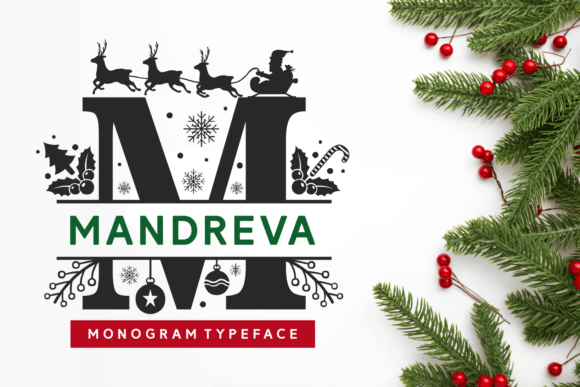
Looking for the perfect font to make your Christmas design projects stand out? Look no further than Mandreva Font, the beautiful decorative font created by Dito (7NTypes).
Mandreva Font is the ultimate tool to take your holiday-themed design projects to the next level. This sweet and festive font features clean letters in a unique Christmas-themed silhouette frame that's sure to capture the spirit of the season.
But Mandreva Font isn't just limited to Christmas designs. With its eye-catching design and unique aesthetic, this font is perfect for any project that needs a touch of whimsy and personality.
Looking for a font that's both playful and sophisticated? Mandreva Font is the perfect choice. Its decorative style adds just the right amount of charm and character to any project, while its clean lines and refined design ensure that it never feels overwhelming or cluttered.
Whether you're designing holiday cards, invitations, or simply looking to add a little extra flair to your next project, Mandreva Font is the perfect tool to help you stand out from the crowd.